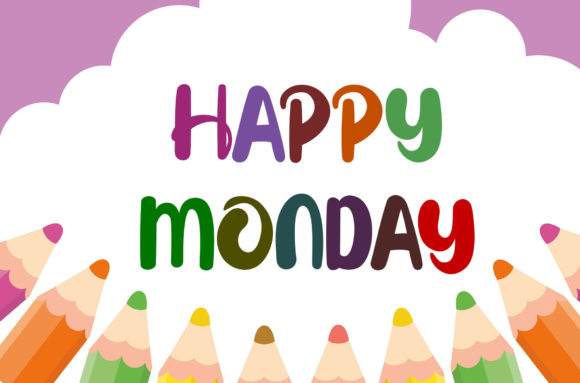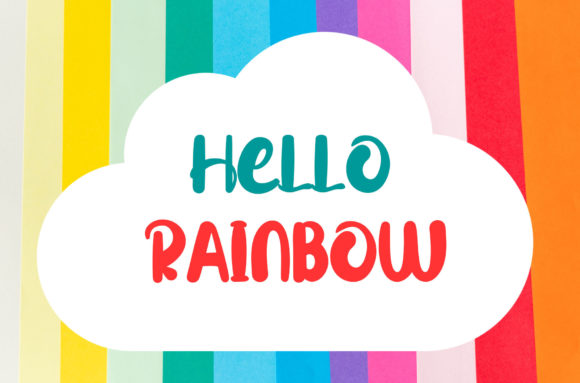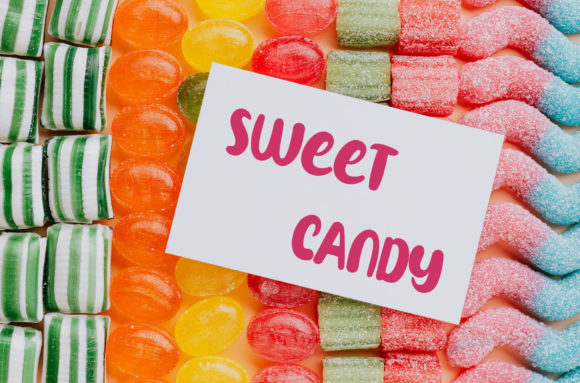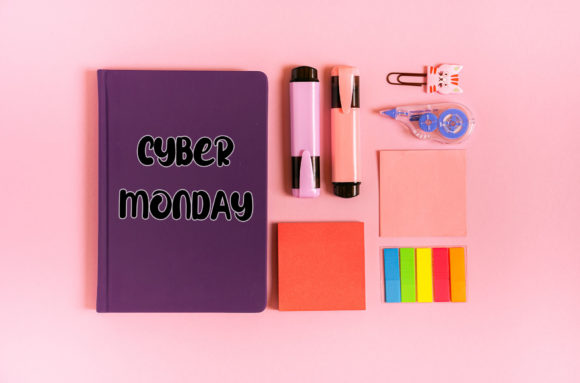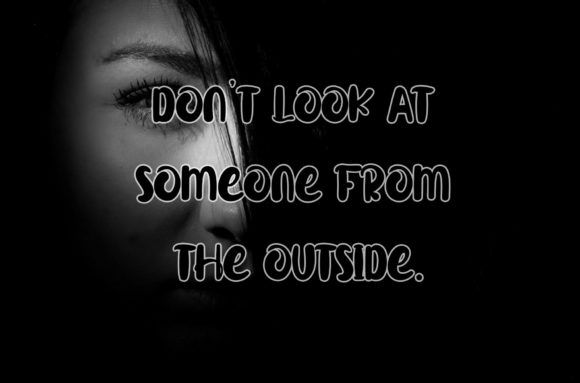
Happy Monday Font
About Happy Monday Font
“Happy Monday” is a beautiful and chic script font crafted with a focus on elegance and class. This font is specifically designed for those who seek a beautiful and refreshing look to enhance their designs. Whether you’re working on branding, creative projects, or any design that demands a touch of sophistication, “Happy Monday” aims to deliver a visually pleasing and stylish aesthetic.
The script style of “Happy Monday” adds a sense of fluidity and grace to your text, enhancing the overall elegance of your design. Its chic characteristics make it suitable for a variety of applications, from logos and branding materials to creative projects that require a refined touch.
This font is crafted with attention to detail to ensure that it exudes a beautiful and refreshing vibe. The choice of curves, lines, and overall design elements is aimed at providing a delightful and sophisticated appearance to your projects.
“Happy Monday” is versatile and can be seamlessly integrated into different design contexts. Whether you’re creating invitations, social media graphics, or any other visual content, this font brings a level of class that resonates with a refreshing and elegant feel.
In summary, “Happy Monday” is not just a font; it’s a beautiful and chic script that enhances the visual appeal of your designs. Its elegance and class make it a valuable asset for designers and creators who want to infuse their projects with a touch of sophistication. Incorporate “Happy Monday” into your designs, and let it bring a beautiful and refreshing look to your creative endeavors.